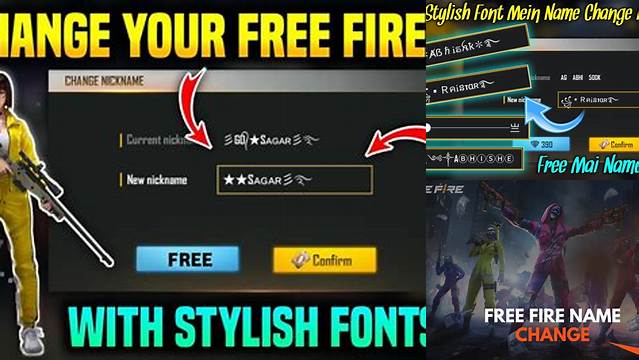
Stylish Fonts For Free Fire: Change Your Name Now!
Free Fire Name Font is more than just a cosmetic feature; it’s a way for players to express their individuality and stand out in the crowded virtual battlegrounds. In Free Fire, your in-game name is your identity. It's how other players recognize you, and a unique name can make a lasting impression. But why stick to the default font when you can spice things up? Changing your font in Free Fire can make your name look stylish, cool, and unique. This comprehensive guide will walk you through everything you need to know about changing your name font in Free Fire, from why it matters to how to do it, and even some creative ideas to get you started. We’ll explore various methods, tools, and tips to help you create a name that truly reflects your personality and gaming style. So, let’s dive in and discover how you can transform your Free Fire name into a statement of your personal brand.
The importance of having a unique name in Free Fire cannot be overstated. In a game where millions of players compete, a distinctive name helps you to be easily identified and remembered. It's not just about aesthetics; a catchy name can also boost your in-game reputation and even intimidate opponents. Think of it as your personal brand in the game. A cool, stylish name can make you look like a pro, even before you’ve fired a shot. It's a psychological edge that can give you an advantage in battles. Moreover, a unique name can help you build a community around your gaming persona. If other players remember your name, they are more likely to recognize you in future matches, team up with you, or even follow your content if you’re a streamer or content creator. So, investing time in crafting the perfect name is well worth it.
Changing your font in Free Fire is all about personalization. It's a simple yet effective way to make your in-game name stand out from the crowd. The default font is plain and generic, and while it gets the job done, it doesn't exactly scream “unique.” A custom font, on the other hand, can add flair, style, and personality to your name. Imagine having a name that looks like it’s straight out of an action movie title or a fantasy novel. That's the kind of impact a cool font can have. There are tons of cool fonts available that can make your name pop. From bold, edgy fonts to elegant, cursive styles, the possibilities are endless. You can choose a font that matches your gaming style, your favorite character, or simply one that you find visually appealing. The goal is to create a name that reflects who you are as a player.
Additionally, changing your font can also help you express your creativity. It’s a form of self-expression within the game. Just like you customize your character's outfits and skins, customizing your name font allows you to showcase your personal style. You can experiment with different fonts, symbols, and decorations to create a name that is truly one-of-a-kind. It's a fun and easy way to add a personal touch to your in-game identity. Moreover, a unique font can also make your name more memorable. In a game with so many players, a distinctive name helps you stand out and be remembered. This can be particularly useful if you’re a content creator or streamer looking to build a following. A memorable name makes it easier for viewers to find you and remember your content. So, changing your font is not just about aesthetics; it's also a strategic move to enhance your personal brand within the Free Fire community.
There are several methods to change your name font in Free Fire, each with its own set of steps and tools. One popular method is using online font generators. These tools allow you to type in your desired name and then generate it in various stylish fonts. You can then copy and paste these fonts directly into Free Fire. It’s a quick and easy way to find a font that you like without having to manually create special characters. Websites like Nickfinder, LingoJam, and CoolSymbol are excellent resources for this. They offer a wide range of fonts and symbols that you can use to customize your name. Simply type your name, browse the available fonts, and copy the one you like best. It’s that simple!
Another method involves using Unicode characters. Unicode is a universal character encoding standard that includes a vast range of symbols and characters beyond the standard alphabet. This means you can use special characters and symbols in your Free Fire name that aren’t available on your keyboard. To use Unicode characters, you’ll need to find a list of Unicode symbols and copy the ones you want to use into your name. Websites like Unicode-table.com are great for this. You can search for specific symbols or browse through categories to find the perfect additions to your name. This method offers a high degree of customization, allowing you to create truly unique and eye-catching names. However, it can be a bit more time-consuming than using a font generator, as you'll need to manually select and copy each character.
In addition to these methods, there are also mobile apps available that can help you generate stylish fonts and names for Free Fire. These apps often have a user-friendly interface and offer a variety of font options and customization features. Some popular apps include Stylish Text and Fancy Text Generator. These apps allow you to type your name and then choose from a range of fonts and styles. You can also add symbols and decorations to further customize your name. They are a convenient option for players who prefer to use their mobile devices to create and customize their names. Regardless of the method you choose, the key is to experiment and find a font and style that you love. With so many options available, you’re sure to find the perfect way to make your Free Fire name stand out.
Changing your name font in Free Fire might seem daunting at first, but it’s actually a straightforward process once you know the steps. Here’s a step-by-step guide to help you through it:
Choose a Font Generator or Unicode Method: The first step is to decide which method you want to use. If you prefer a quick and easy solution, online font generators are the way to go. If you want more control and customization, using Unicode characters might be a better fit. Consider your preferences and the level of customization you desire when making your choice. For font generators, websites like Nickfinder and LingoJam are excellent options. For Unicode characters, Unicode-table.com is a great resource. Take some time to explore these resources and get familiar with the options available.
Generate Your Name in the Desired Font: Once you've chosen a method, it's time to generate your name. If you're using a font generator, simply type your name into the tool and browse the available fonts. When you find one you like, copy it to your clipboard. If you're using Unicode characters, browse the Unicode table and copy the characters you want to use. This might involve some trial and error as you experiment with different combinations of characters. Don't be afraid to get creative and try new things. The goal is to create a name that is unique and reflects your personal style.
Open Free Fire and Go to Your Profile: Next, open the Free Fire app on your device and navigate to your profile. This is usually located in the top left corner of the screen. Tap on your profile picture to access your profile page. This is where you can view your stats, achievements, and other information about your account. It's also where you can change your name.
Tap the Edit Icon Next to Your Name: On your profile page, you'll see your current name. Next to it, there should be an edit icon (usually a pencil or a similar symbol). Tap on this icon to open the name change dialogue box. This is where you'll be able to enter your new name.
Paste the Generated Font into the Name Field: Now, paste the font you generated (either from the font generator or the Unicode characters) into the name field. Make sure that the font looks correct and that all the characters are displaying properly. Sometimes, certain characters may not be supported by Free Fire, so you might need to make adjustments. Take your time to review the name and ensure it looks exactly how you want it to. Once you’re satisfied, you’re ready to move on to the next step.
Confirm the Name Change (500 Diamonds): Free Fire charges 500 diamonds to change your name. If you have enough diamonds, you can confirm the change. If you don’t have enough diamonds, you’ll need to purchase them or use a name change card if you have one. Diamonds are the premium currency in Free Fire, so you’ll need to be mindful of your balance. If you’re on a budget, consider saving up diamonds or looking for opportunities to earn them through in-game events and promotions. Once you’ve confirmed the change, your new name will be displayed in the game.
Enjoy Your New Stylish Name: Congratulations! You’ve successfully changed your name font in Free Fire. Now you can enjoy your new stylish name and show it off to other players. A unique name can make a big difference in how you're perceived in the game, so take pride in your new identity. Remember, your name is your personal brand in Free Fire, so make it count.
When it comes to creative font ideas for Free Fire names, the sky's the limit. You can experiment with a variety of styles and combinations to create a name that truly reflects your personality and gaming style. One popular approach is to combine different fonts and symbols. For example, you could use a bold font for the main part of your name and then add some decorative symbols around it to make it pop. This adds visual interest and makes your name more eye-catching. Think of it as adding flair to your signature – the more unique, the better!
Another idea is to use fonts that match your in-game persona or favorite character. If you prefer a stealthy, assassin-like playstyle, you might choose a dark and edgy font. If you’re more of a flashy, aggressive player, a bold and attention-grabbing font might be a better fit. Aligning your font with your playstyle adds another layer of personalization to your in-game identity. Similarly, if you have a favorite character in Free Fire, you could choose a font that matches their personality or backstory. This is a fun way to show your appreciation for the game’s lore and characters.
You can also get creative with the arrangement of your name. Instead of just using a standard font, try adding spaces or symbols to break up the letters and create a unique visual effect. This can make your name look more artistic and memorable. For instance, you could insert a small symbol between each letter or use a combination of uppercase and lowercase letters to create a visually appealing pattern. Remember, the goal is to make your name stand out, so don’t be afraid to think outside the box and try new things. Ultimately, the best font is the one that you love and that reflects who you are as a player. So, take some time to explore different options and find the perfect font for your Free Fire name.
Choosing the right font for your Free Fire name can be a fun but also challenging task. There are so many options available, so how do you narrow it down and pick the perfect one? One important tip is to consider readability. While a fancy font might look cool, it’s crucial that other players can actually read your name. If your name is too difficult to decipher, it defeats the purpose of having a unique identity. Look for fonts that are stylish but also clear and easy to read. Avoid fonts that are overly stylized or have too many embellishments, as these can be difficult to make out in the heat of battle.
Another factor to consider is compatibility. Not all fonts and symbols are supported by Free Fire. Some characters may appear as blank boxes or question marks in the game. Before you finalize your name, make sure to test it in the game to ensure that all the characters are displaying correctly. This can save you the frustration of spending diamonds on a name change only to find that your chosen font doesn’t work. A simple way to do this is to copy and paste your name into the in-game chat or a message to a friend. If it looks good there, it should look good in your profile as well.
Finally, think about the overall aesthetic you’re trying to achieve. Your font should complement your in-game persona and style. If you want to project a serious, competitive image, a bold and powerful font might be a good choice. If you’re more laid-back and playful, a fun and quirky font might be more suitable. Consider your personality and how you want to be perceived by other players. Your name is your first impression in the game, so make sure it’s a good one. By considering these tips, you can choose a font that not only looks great but also enhances your overall gaming experience.
When changing your name font in Free Fire, there are some common mistakes that players make. One of the biggest mistakes is using fonts that are too complicated or illegible. While it’s tempting to choose a super fancy font to stand out, if other players can’t read your name, it’s not going to be very effective. A name that’s difficult to decipher can lead to confusion and make it harder for teammates to communicate with you. So, always prioritize readability over style. Choose a font that is clear and easy to read, even at a distance.
Another common mistake is using too many special characters or symbols. A few well-placed symbols can add flair to your name, but too many can make it look cluttered and unprofessional. It’s best to use symbols sparingly and strategically. Think of them as accents – a little can go a long way. A name that is overloaded with symbols can also be difficult to remember, which defeats the purpose of having a unique name in the first place. So, keep it simple and focus on creating a name that is both stylish and memorable.
Additionally, forgetting about the 500-diamond cost of changing your name is a mistake that many players make. It’s easy to get caught up in the excitement of creating a new name and forget that it comes with a price. Before you finalize your name, make sure you have enough diamonds or a name change card. Otherwise, you’ll have to purchase diamonds, which can be costly. It’s always a good idea to double-check your diamond balance before making any changes to your account. By avoiding these common mistakes, you can ensure that your name change process goes smoothly and that you end up with a name that you’re proud to show off in Free Fire.
In conclusion, changing your name font in Free Fire is a fantastic way to personalize your gaming experience and make a statement. A unique and stylish name can help you stand out from the crowd, express your personality, and even intimidate your opponents. By following the methods and tips outlined in this guide, you can easily transform your in-game name into a true reflection of who you are as a player. Remember, your name is your identity in the virtual world of Free Fire, so make it count. Don't be afraid to get creative and experiment with different fonts, symbols, and styles until you find the perfect combination.
We’ve covered everything from why changing your font matters to step-by-step instructions, creative ideas, and common mistakes to avoid. Whether you choose to use online font generators, Unicode characters, or mobile apps, the possibilities are endless. The key is to find a font that not only looks great but is also readable and compatible with Free Fire. So, go ahead and start brainstorming! Think about your playstyle, your favorite characters, and your personal style, and let that guide your font choices. With a little bit of creativity and effort, you can create a name that is both memorable and impactful.
Ultimately, changing your name font is about more than just aesthetics; it’s about making a statement. It’s about showing the Free Fire community who you are and what you’re all about. So, take pride in your new stylish name and let it be a symbol of your unique gaming identity. Now that you have all the knowledge and tools you need, it’s time to dive into Free Fire and show off your awesome new name. Happy gaming, and may your name always be remembered on the battlefield!